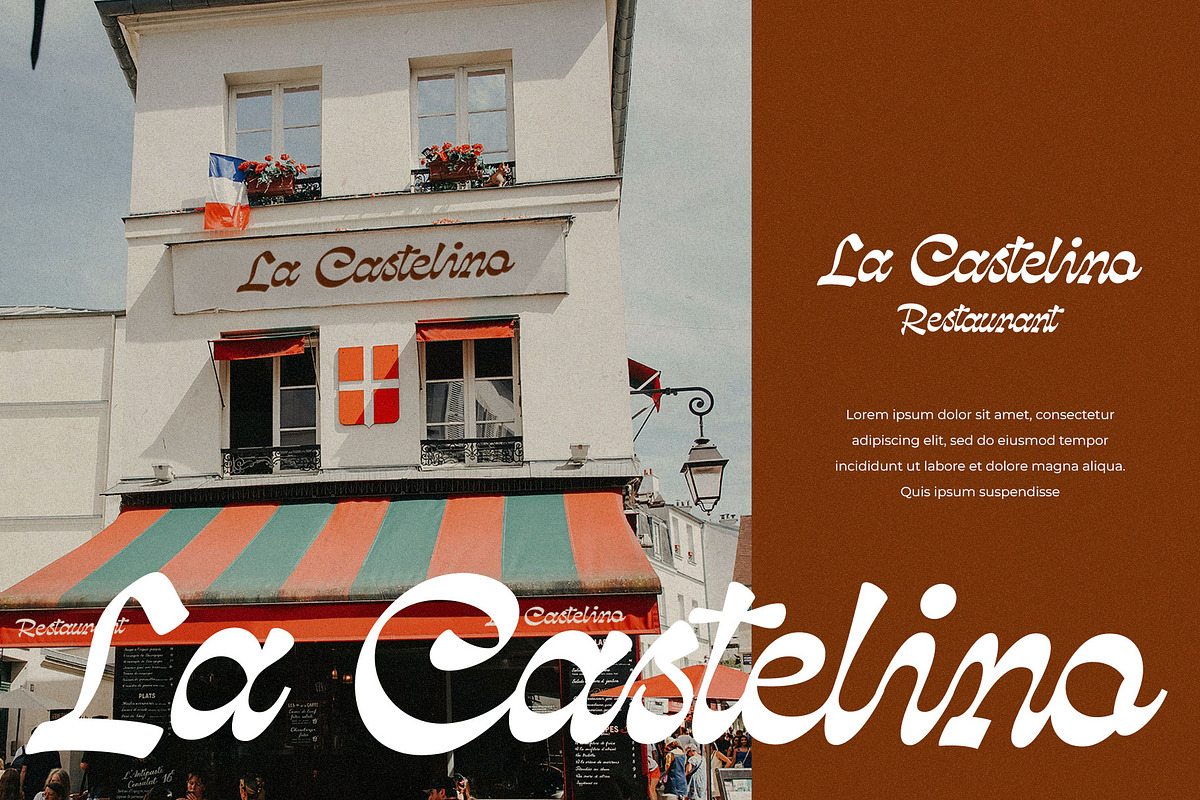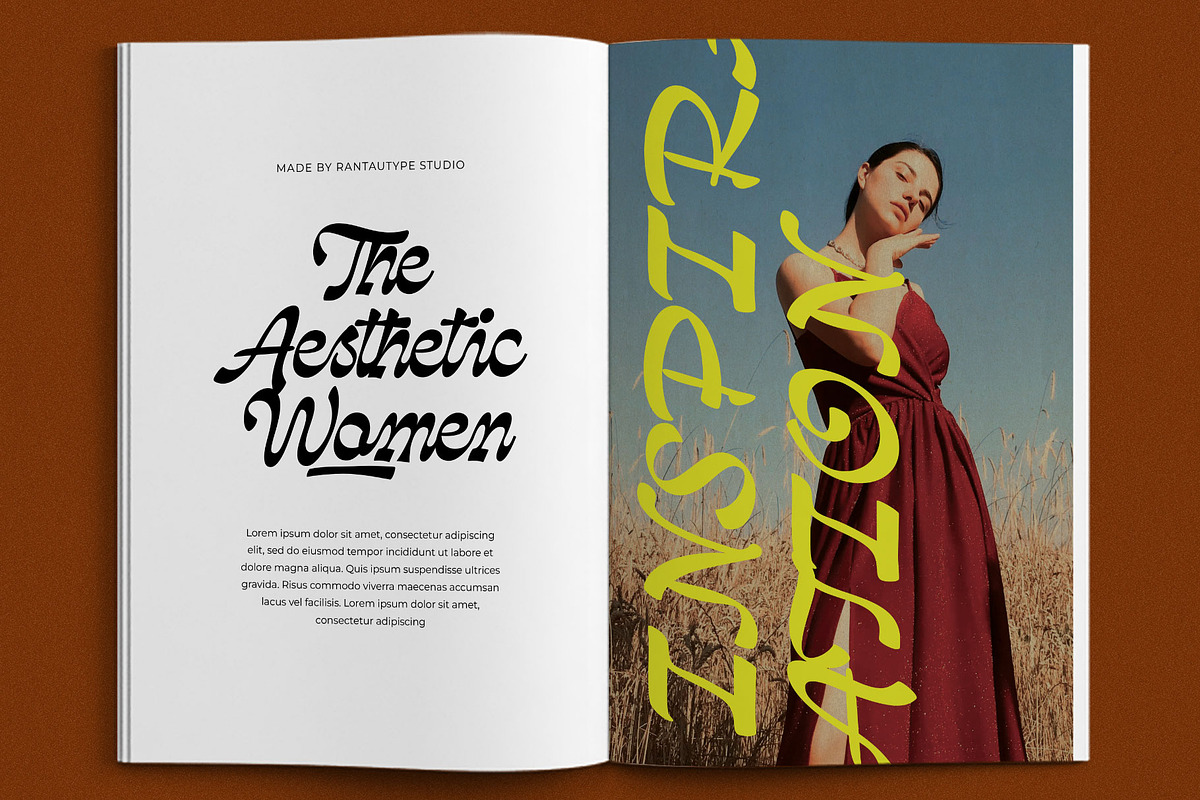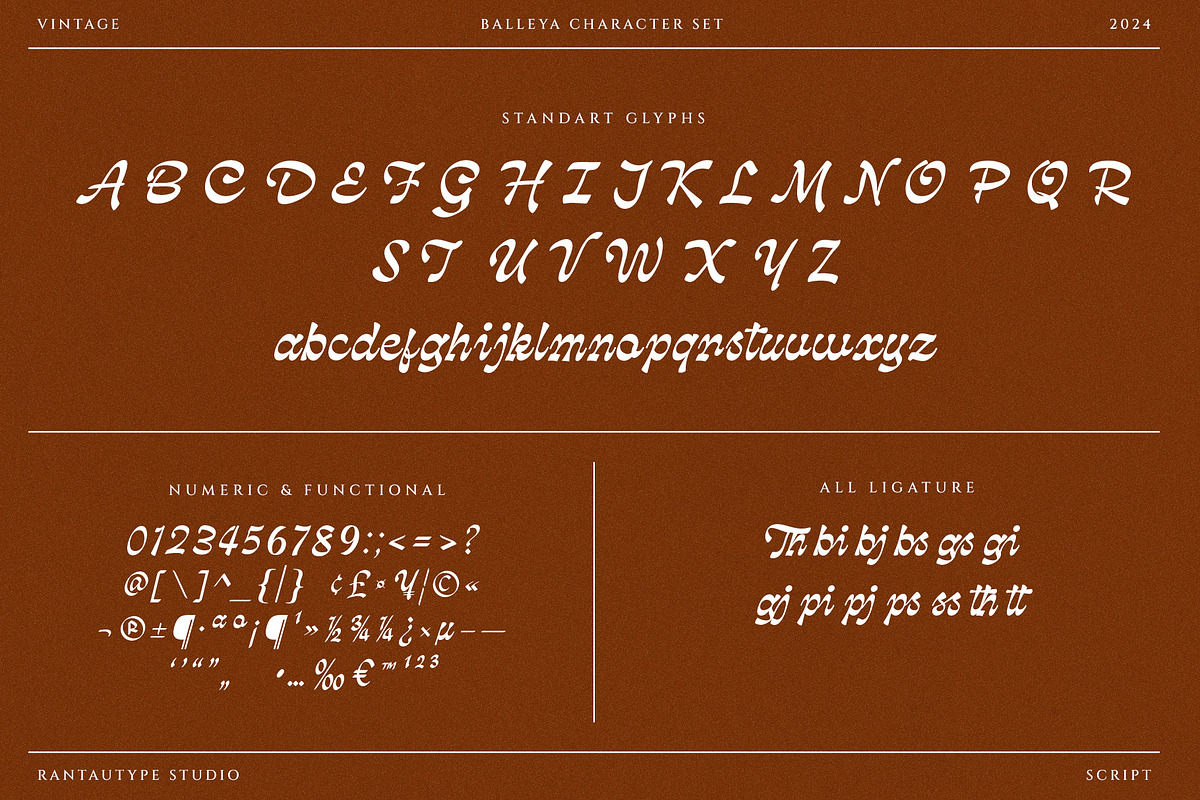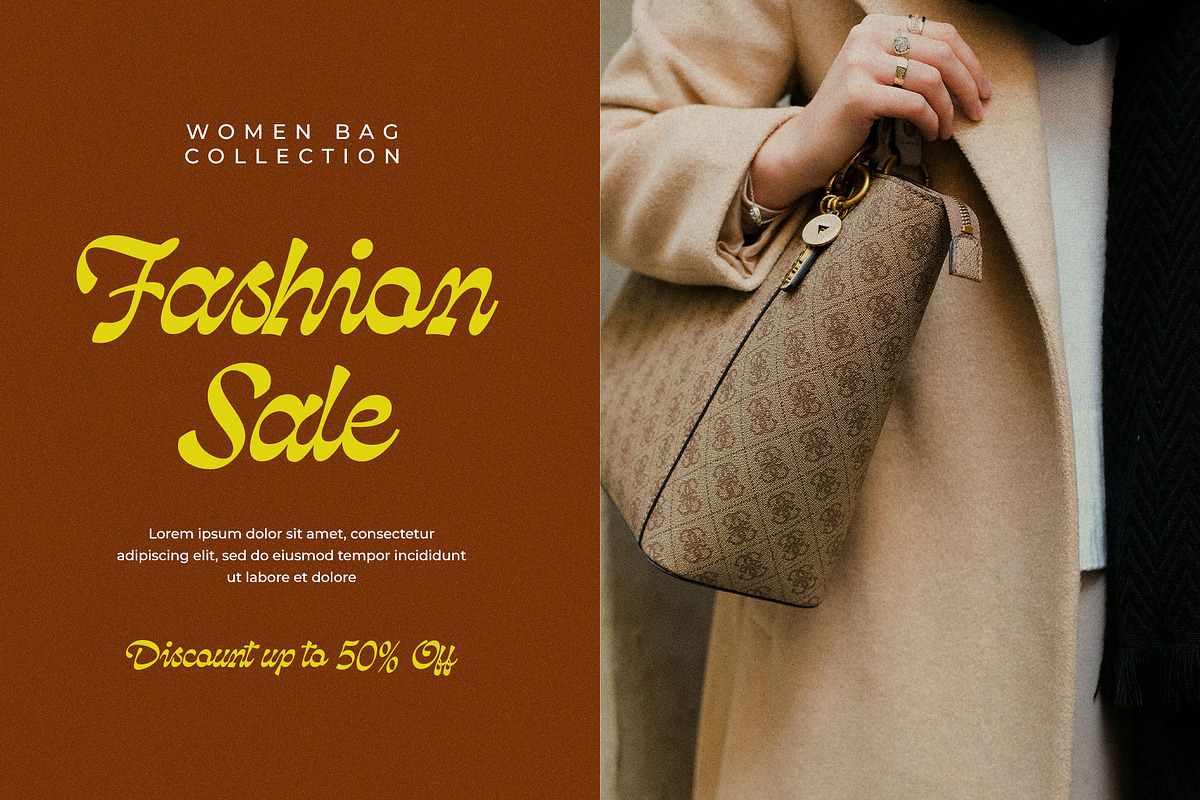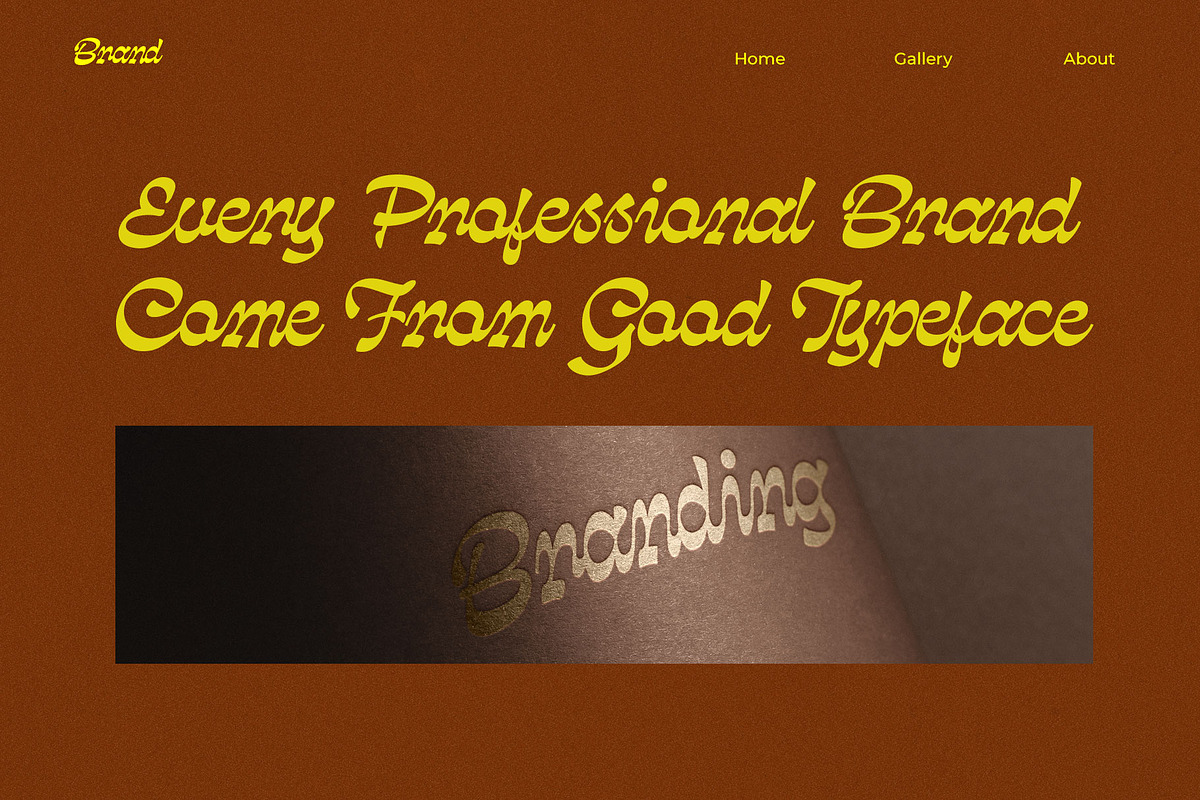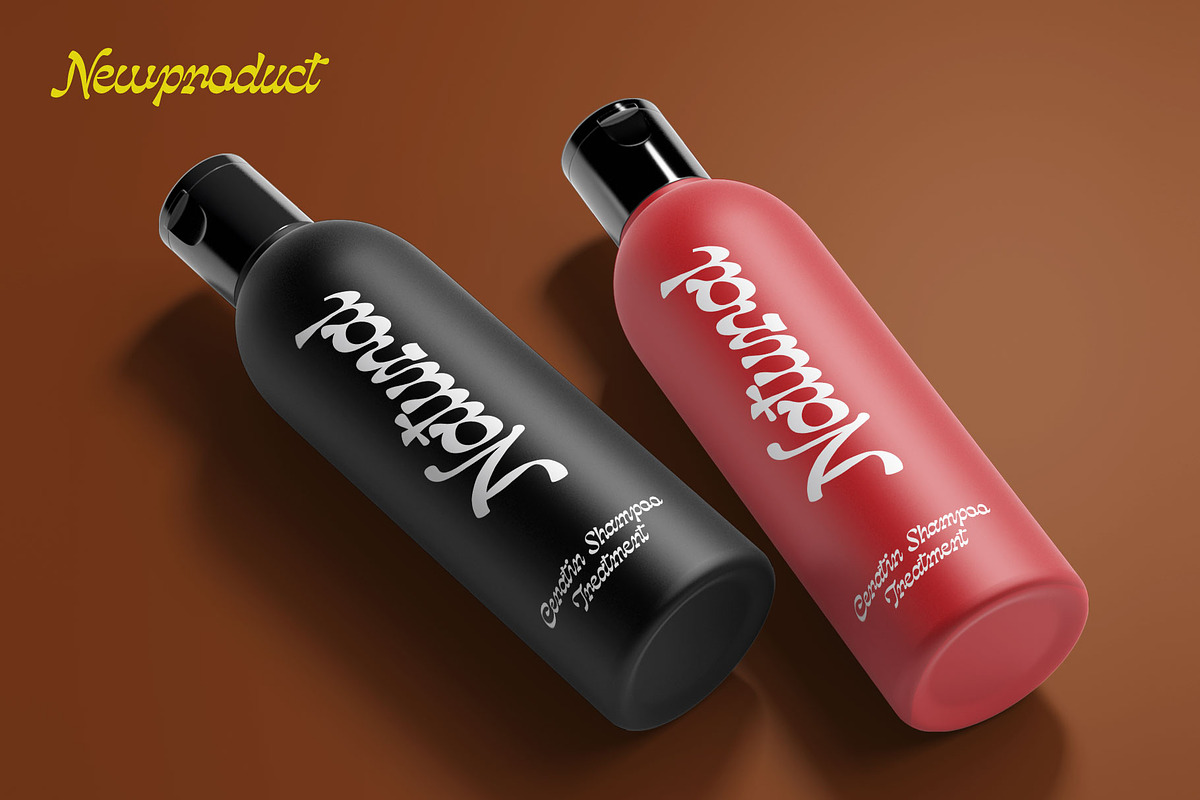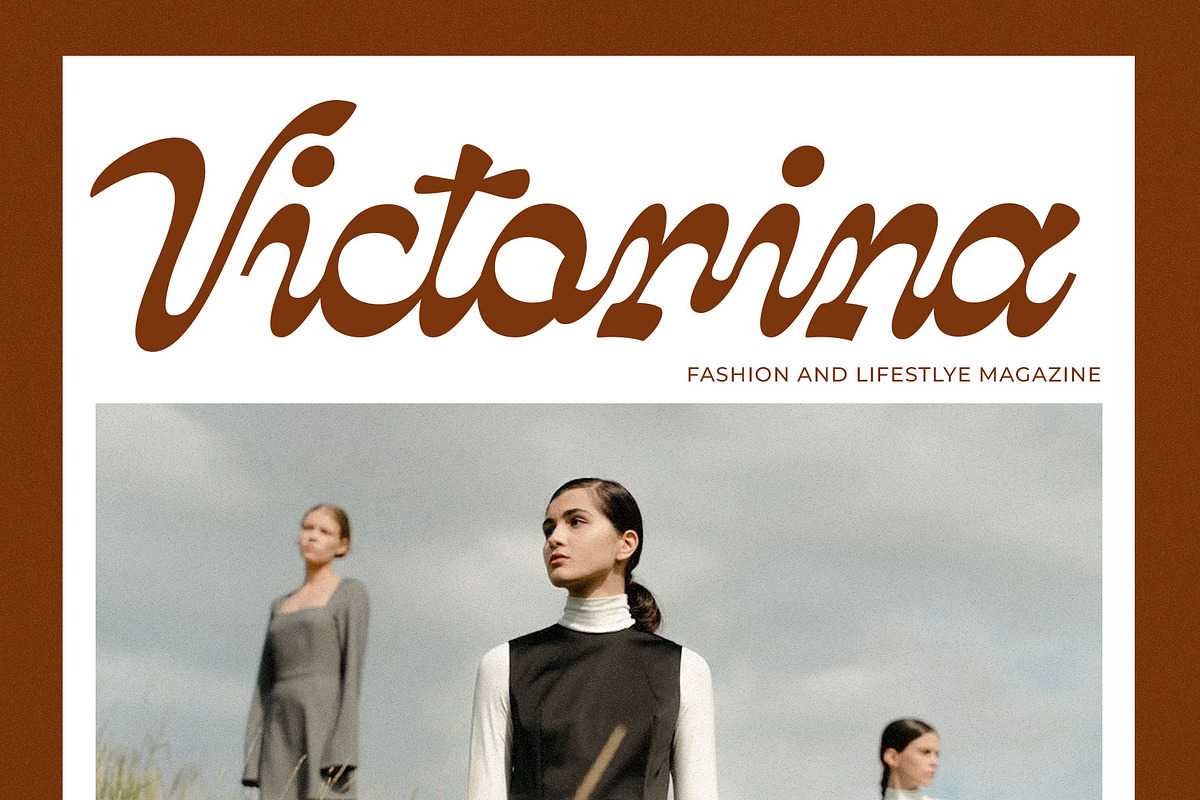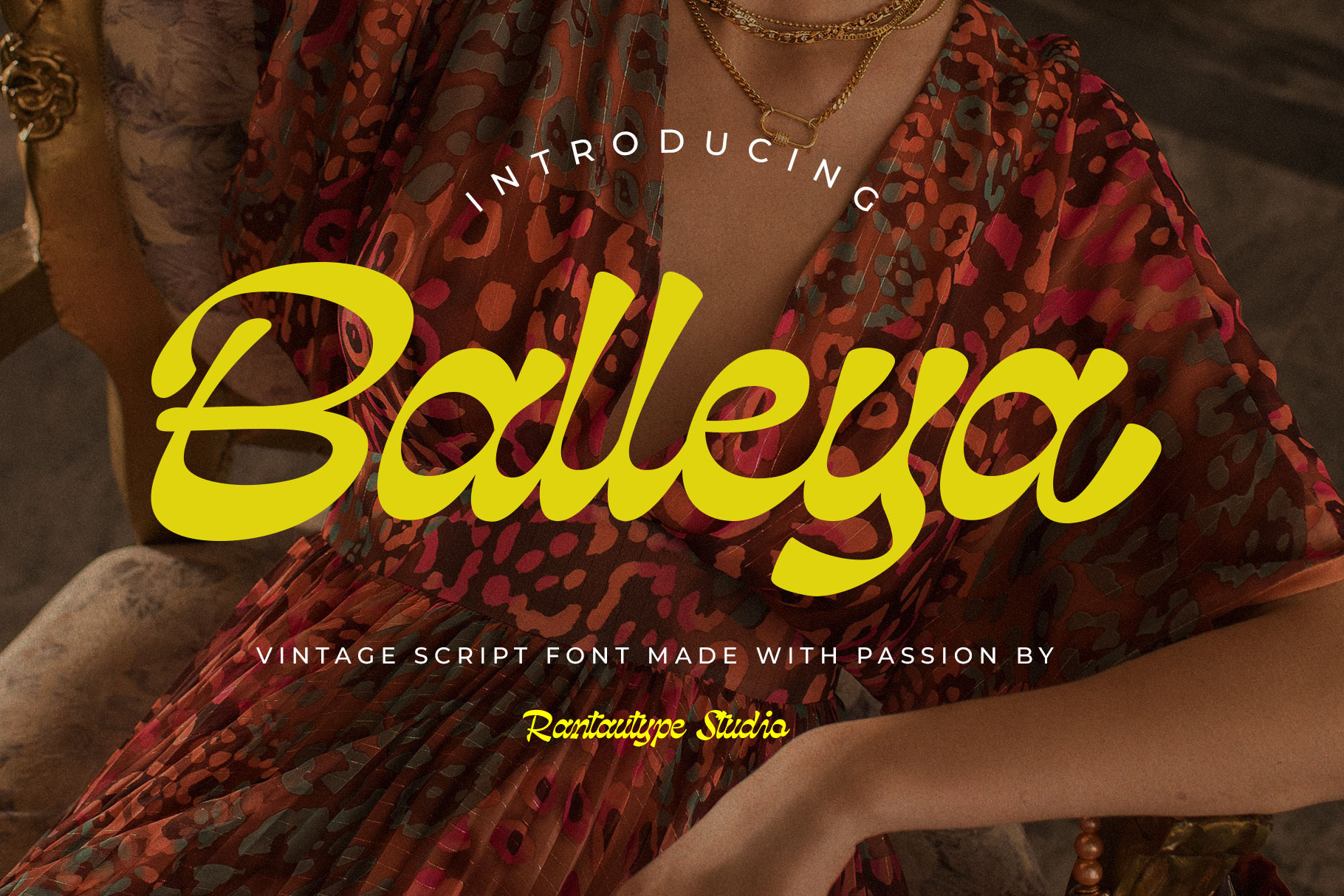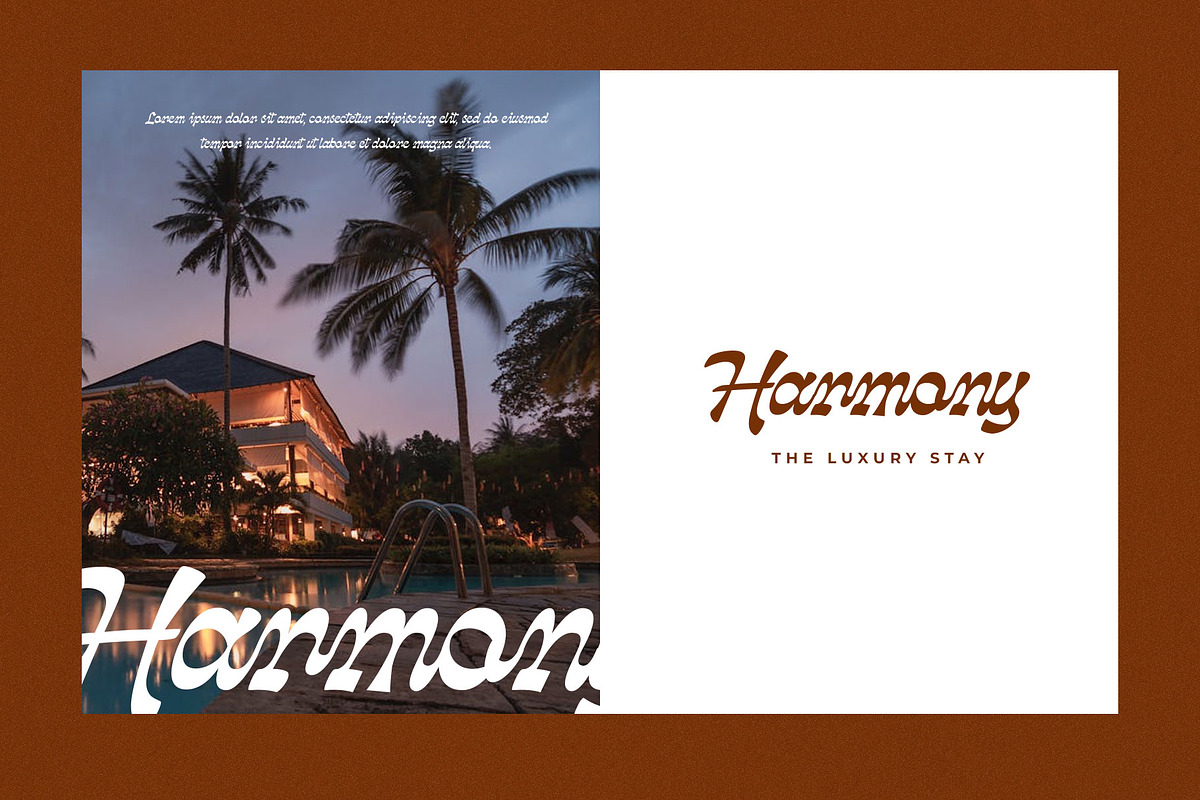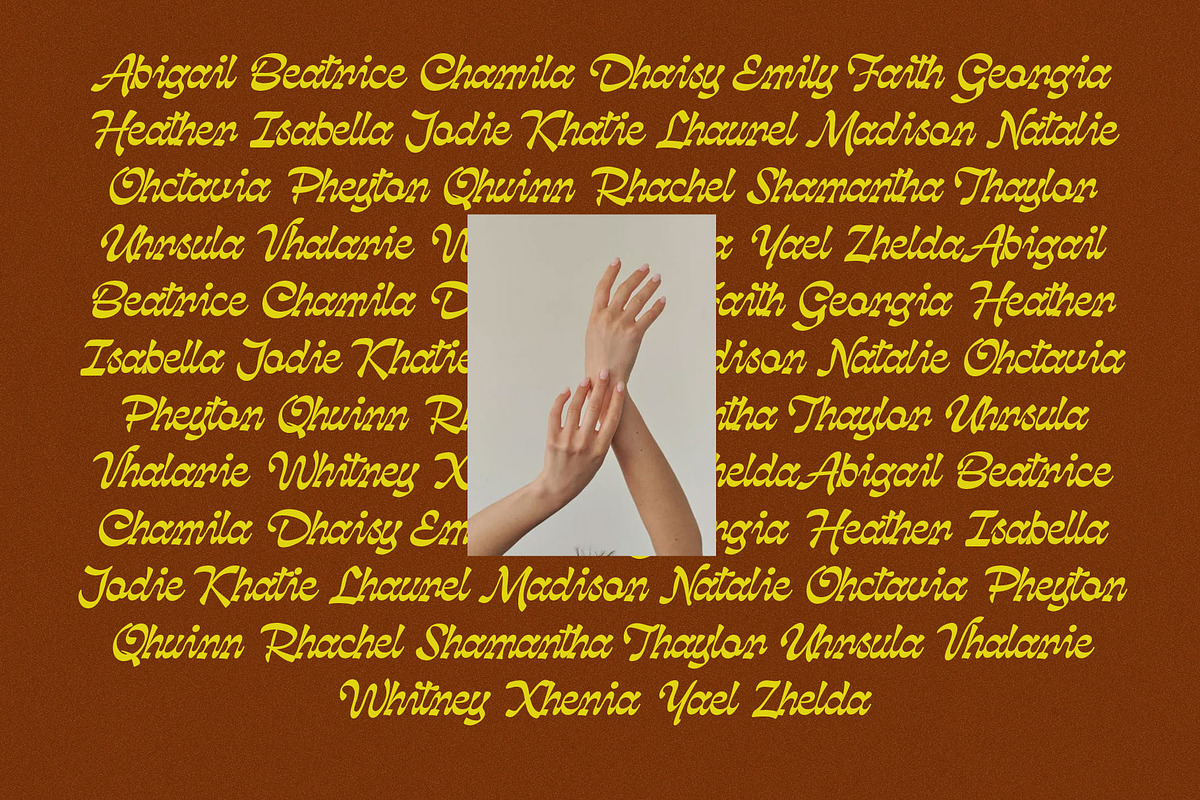
Balleya Vintage Script Font
Balleya is vintage script font made with passion by rantautype studio. Balleya is a beautiful choice for any creative endeavor, creating, modern, chic, lifestyle design such as logotype, title, cover, branding, invitations, wedding designs, display and magazine, social media posts, advertisements, printed quotes, product packaging, corporate brand, product designs, labels, photography, watermarks, special events and any other project with vintage touch.
- Standart Glyphs
- Alternate and ligature